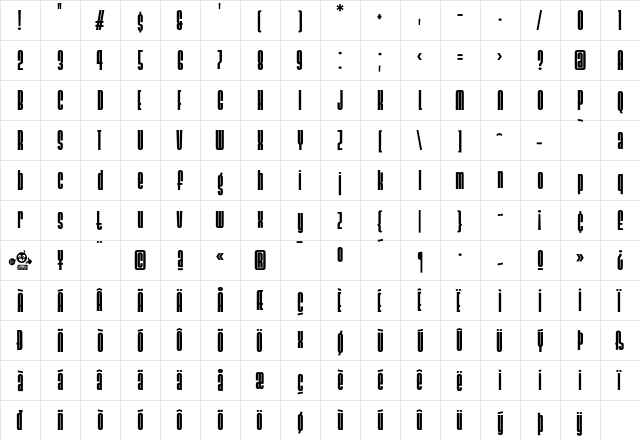
Ainsdale Bold
| Foundry | n Hughes . A Device font |
Design Context for Ainsdale Typeface
Ainsdale offers clean, dependable letterforms without strong stylistic allegiance, making it a practical choice for designers who need flexibility. The heavy weight commands attention and anchors typographic hierarchies.